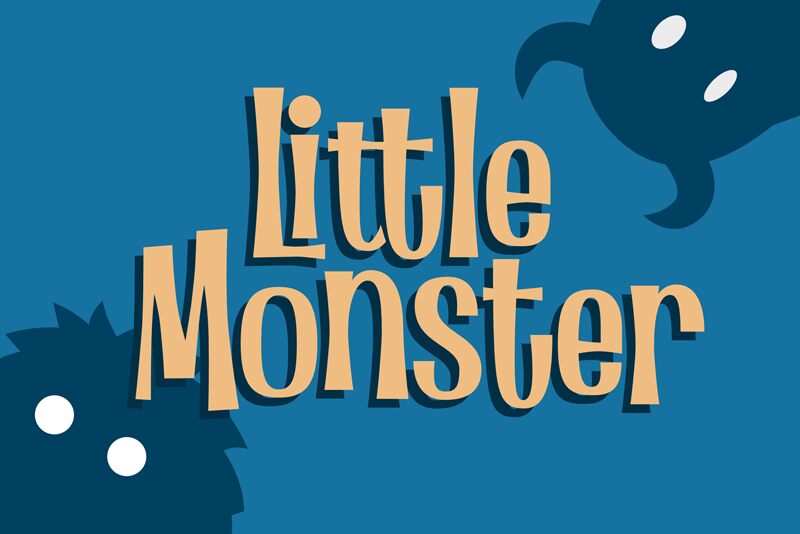
Little Monster, the playful display font designed by Toko Laris Djaja, is perfect for any project that demands a fun and energetic style. Its cartoonish design will add a touch of whimsy to any title or headline, while its condensed width allows for maximum impact in limited space. Use Little Monster to bring your designs to life on everything from posters to children's books. This semi-bold font is ideal for creating bold and eye-catching headlines that demand attention. With its unique style, Little Monster is sure to create a standout impression on any project where you want to add some fun and excitement!